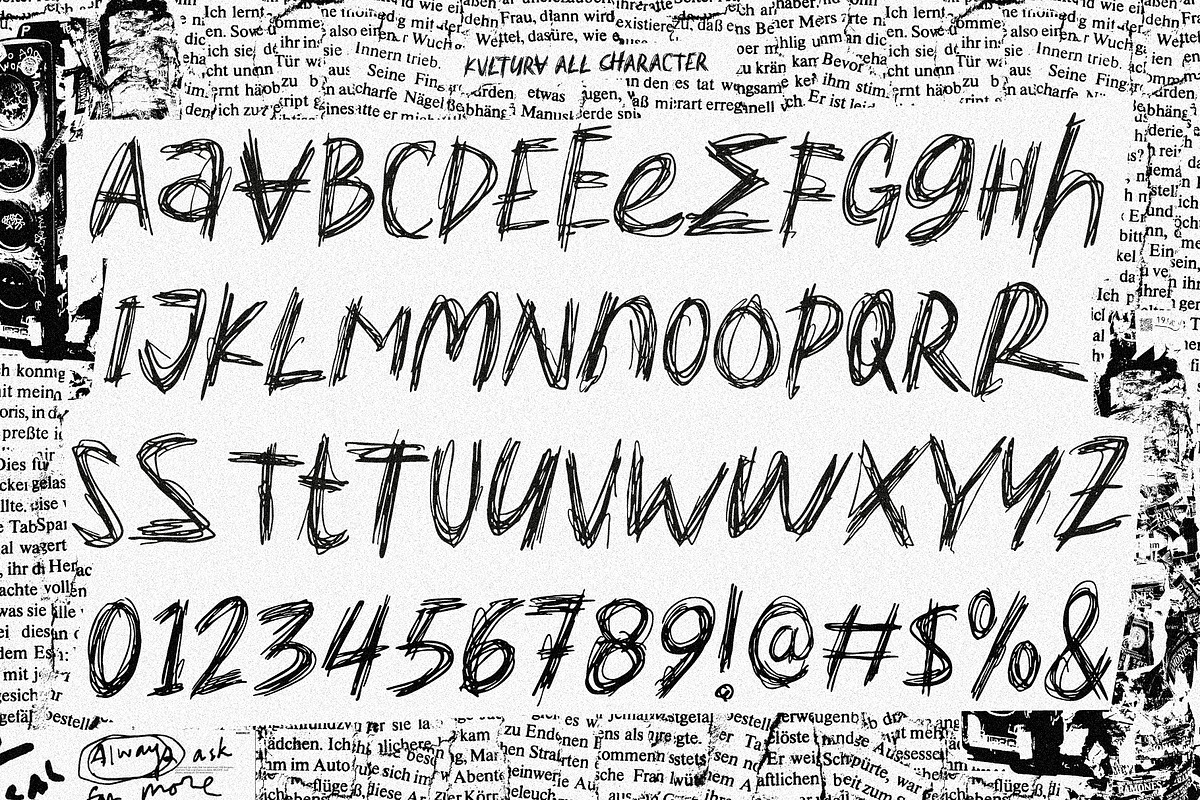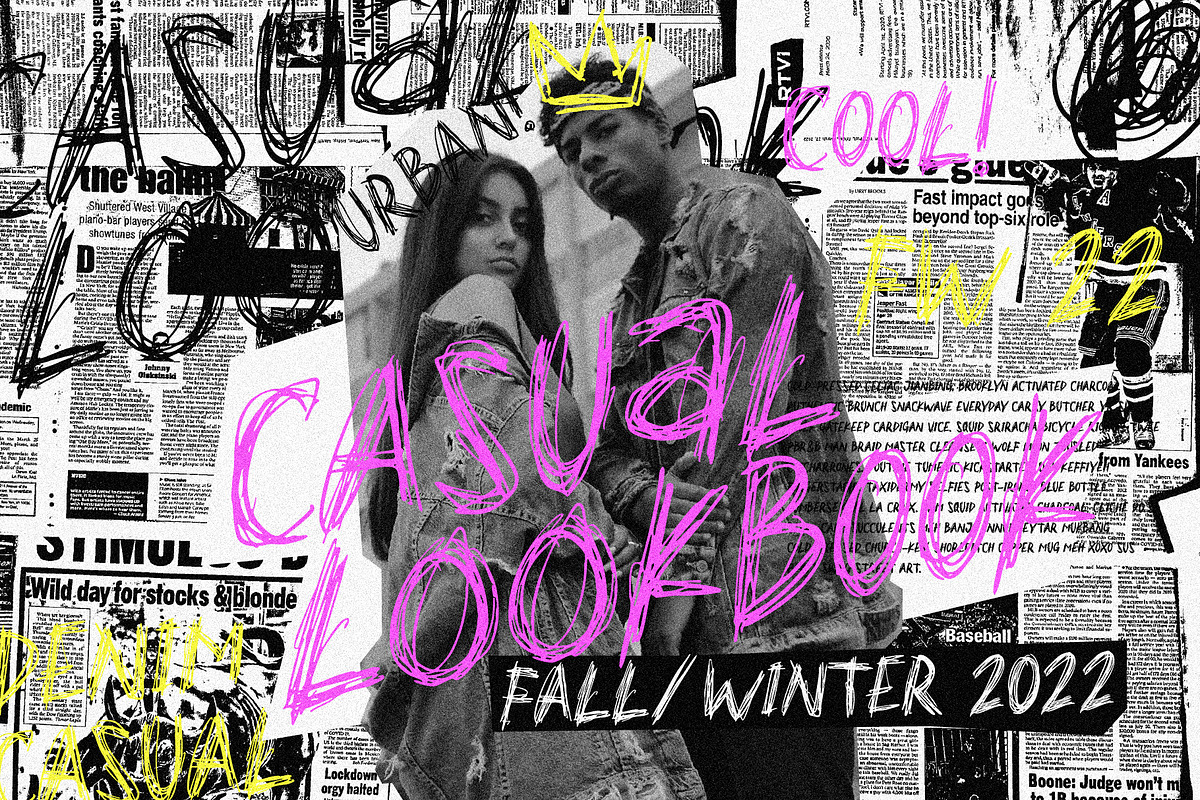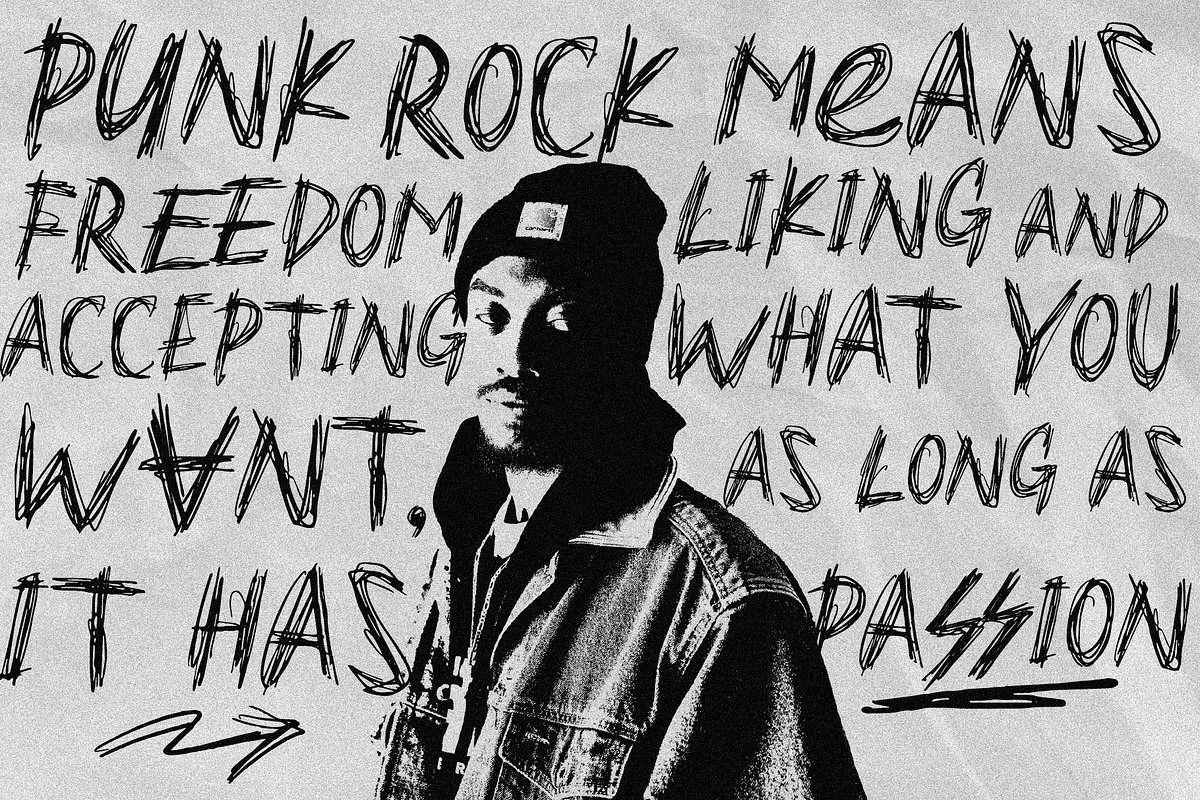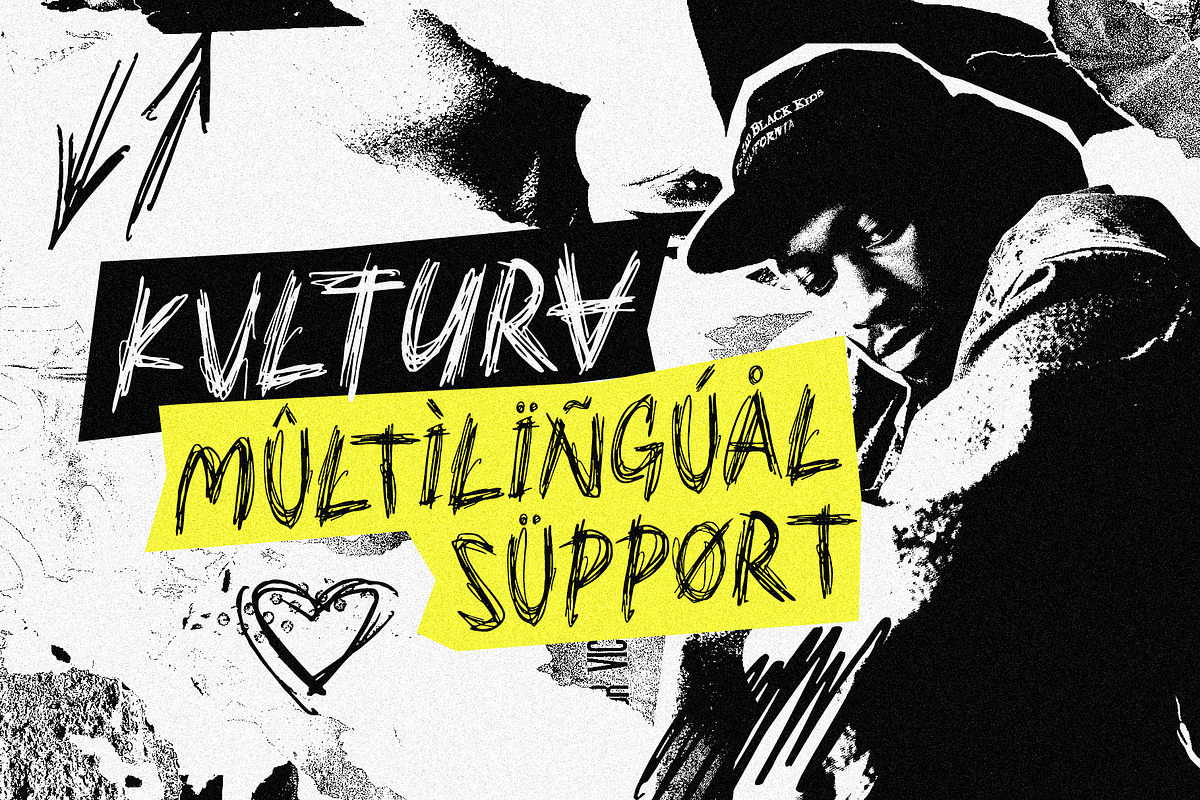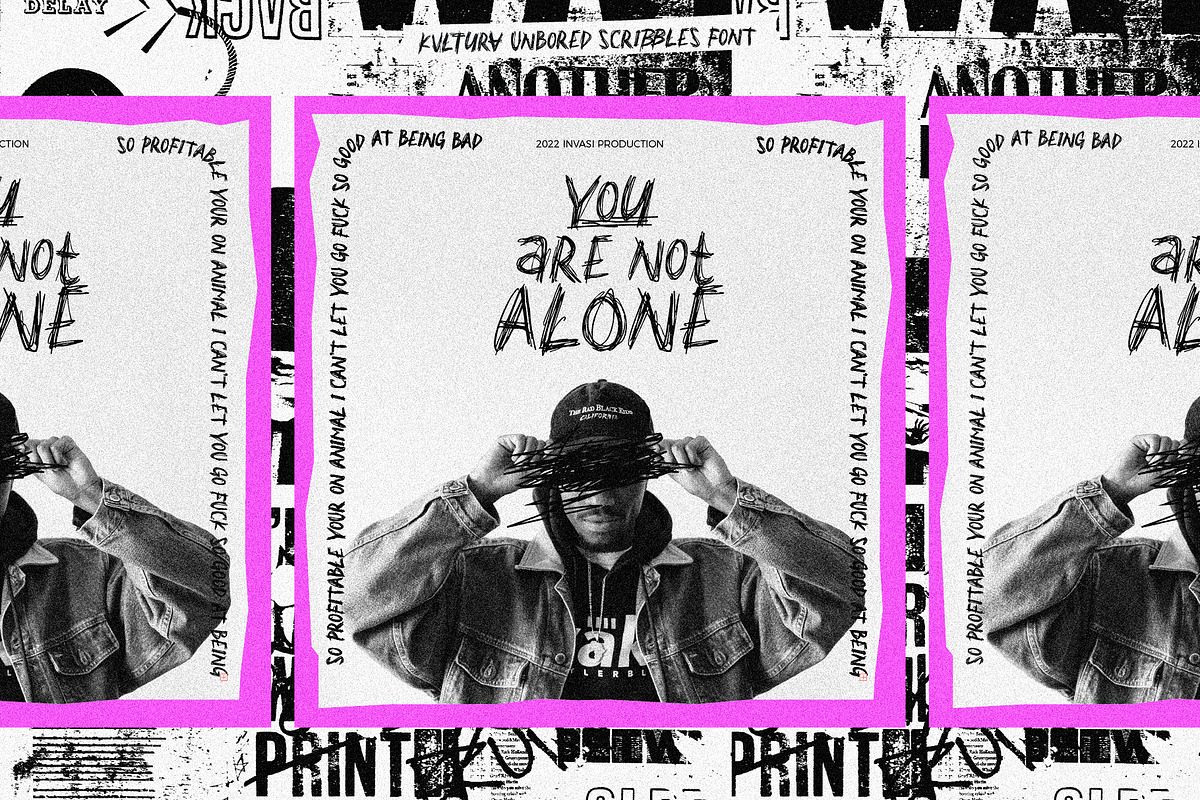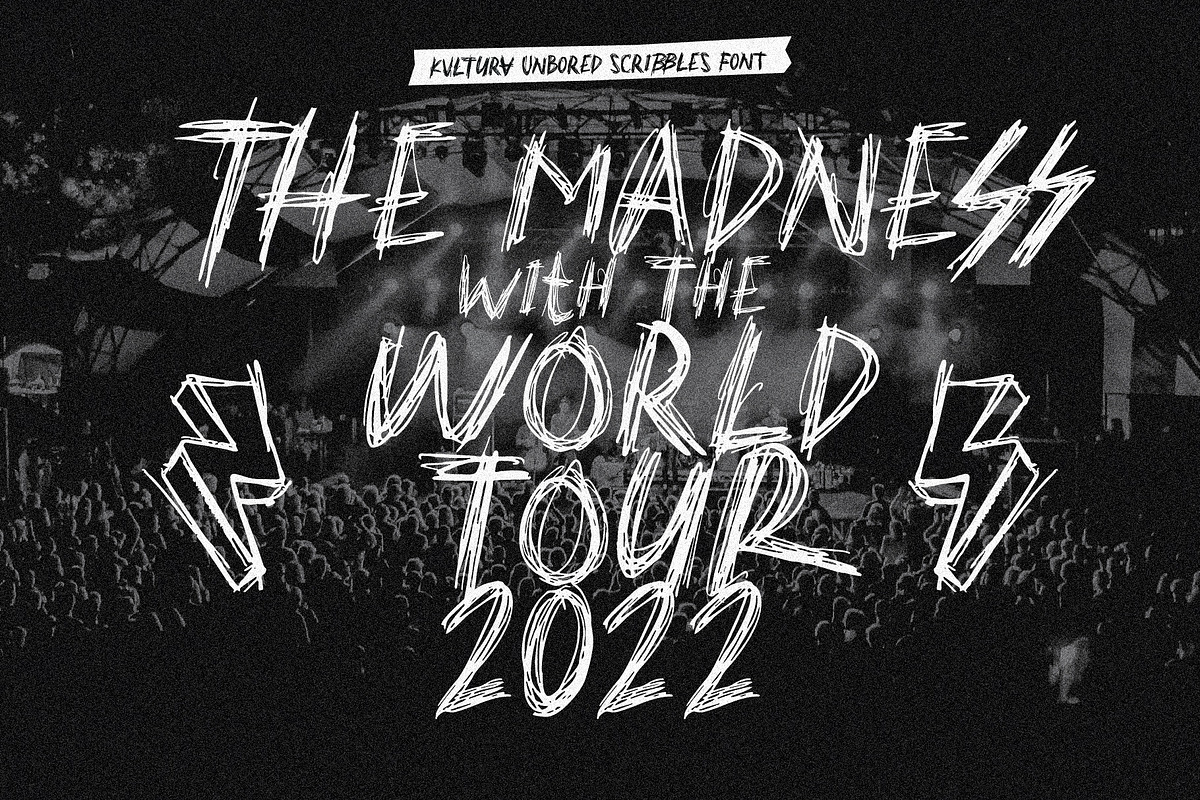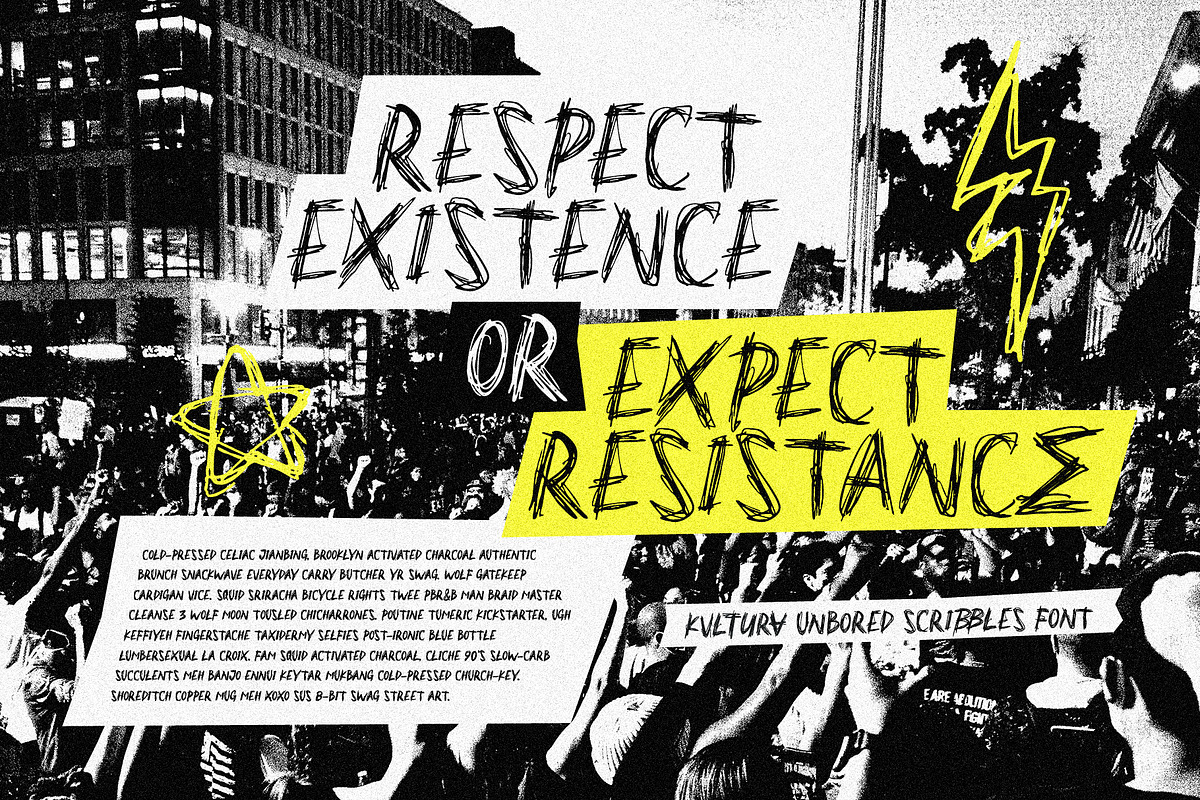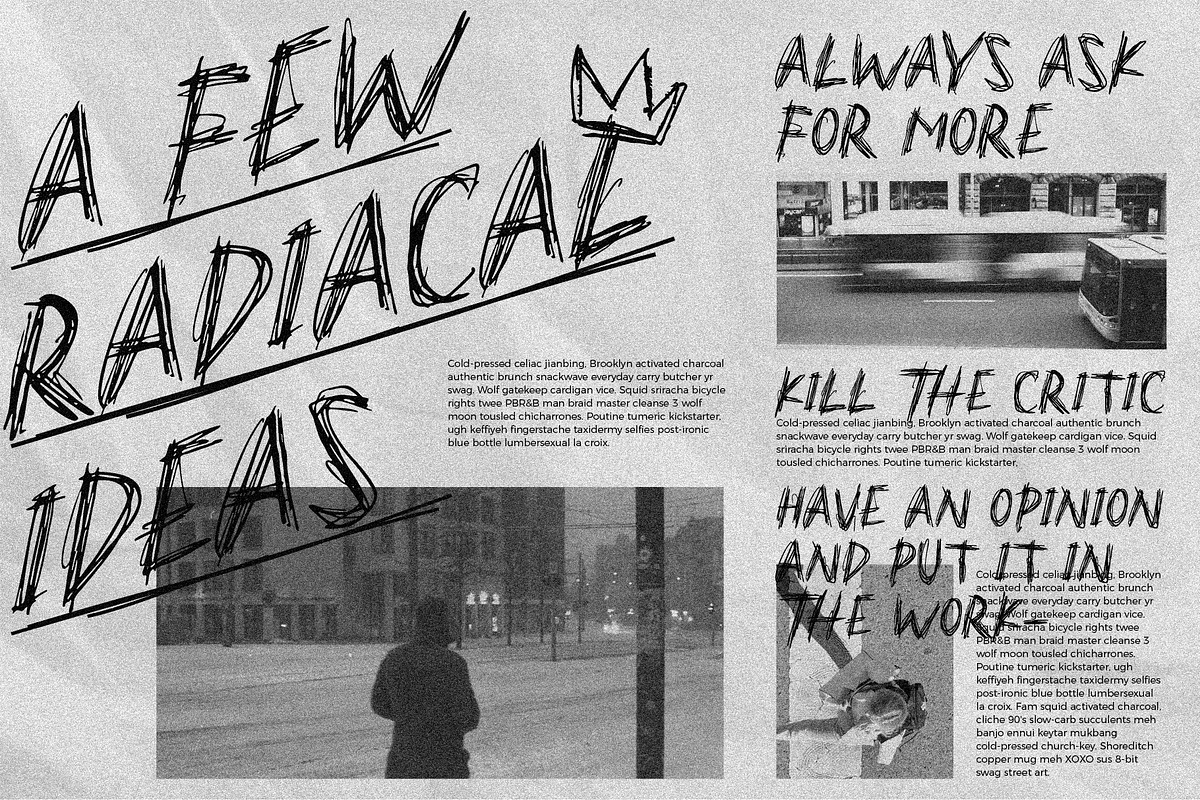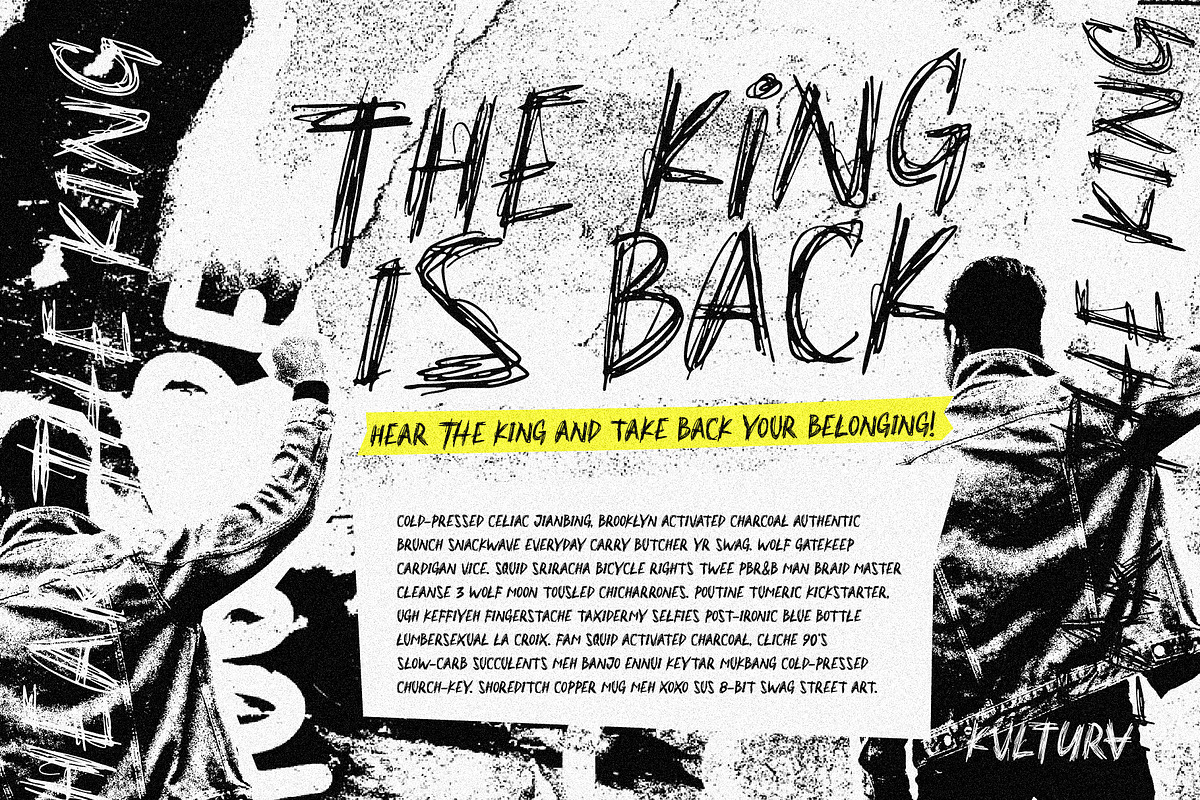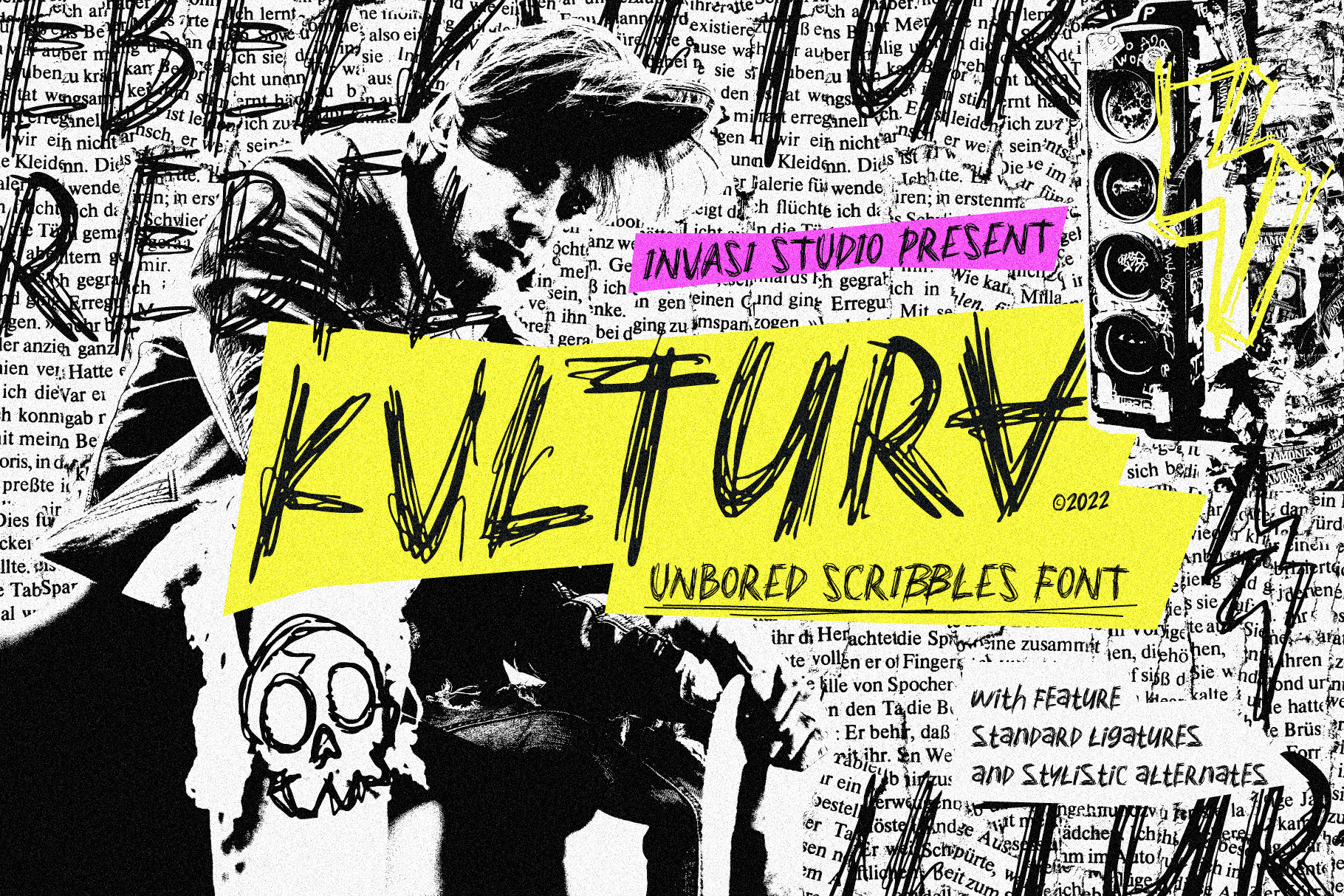
Kvltura - Unbored Scribbles Font
You want to add more rawness to your design. The Kvltura Font comes in Unbored Scribbles style, making your voice louder. Kvltura is an all-caps handwritten font. You can also combine any character with a Kvltura ligature and alternates for an incredible combination!
This font is perfect for your display project for headlines, quotes, editorial design, print posters, and much more.
- Total 250 Glyph
- Alternates & Ligature
- Multilanguage Supports 60+ Latin-based languages